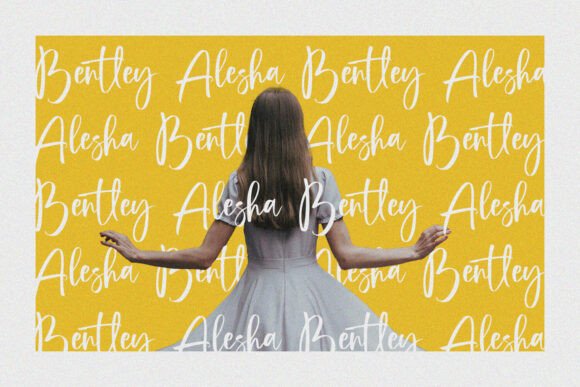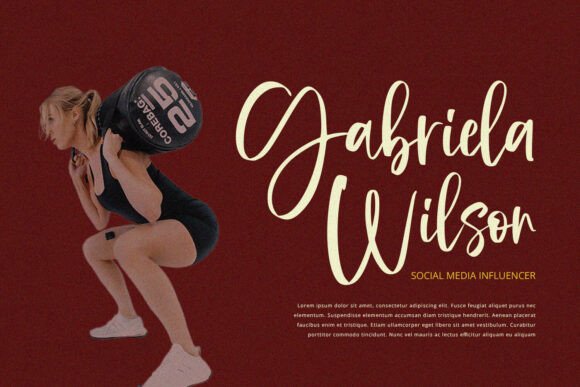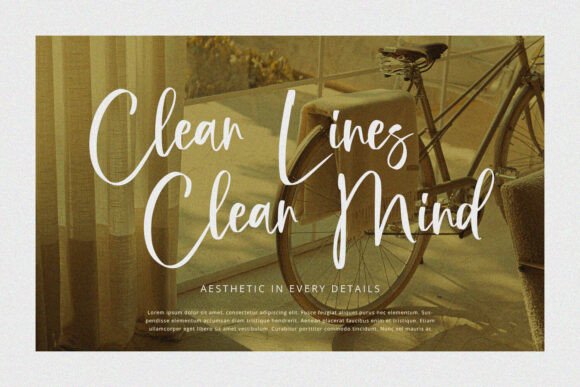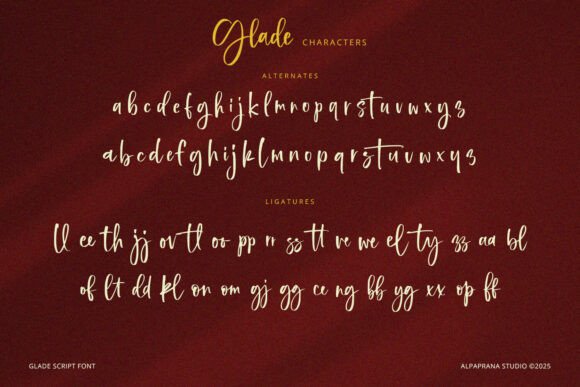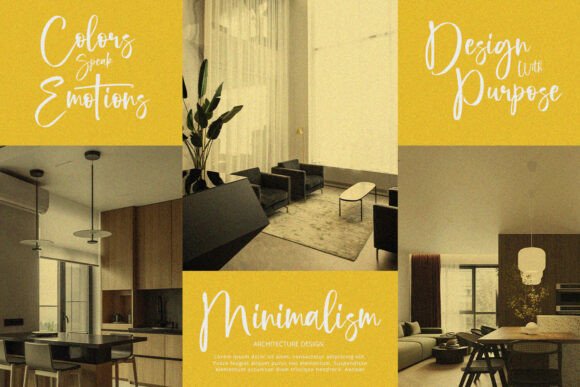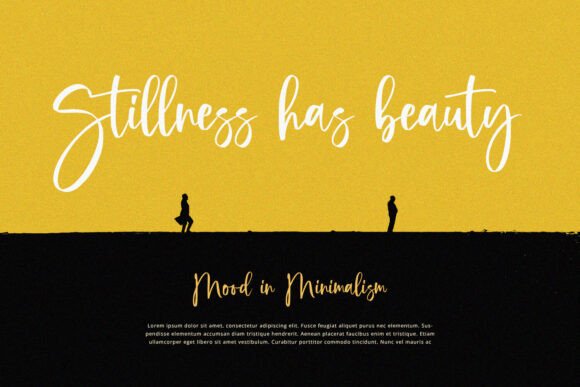
Introducing Glade Font: Elevate Your Designs with Chic and Modern Handwritten Script
In the world of typography, fonts play a crucial role in conveying the tone and aesthetic of a design project. For designers and crafters seeking a stylish and contemporary look, Glade Font is an excellent choice. This handwritten script font boasts a chic and modern feel, making it perfect for a wide range of applications, from magazines and packaging to posters, shopping bags, t-shirts, book covers, photography, and special events.
What Makes Glade Font Stand Out?
Glade Font’s unique charm lies in its elegant, cursive script. The font’s flowing lines and subtle variations in thickness create a sense of movement and fluidity, adding a touch of sophistication to any design. Its modern feel ensures that your projects look fresh and up-to-date, while its handwritten nature adds a personal and approachable touch.
Glade Font’s versatility makes it an excellent choice for numerous design applications. Here are some of the ways you can use this beautiful font:
• Magazines and Editorials: Add a touch of elegance to your magazine layouts, articles, and headlines with Glade Font.
• Packaging: Elevate your brand’s packaging design with a stylish and modern font that reflects your company’s personality.
• Posters and Flyers: Create eye-catching posters and flyers for events, promotions, or advertisements with Glade Font’s bold and cursive script.
• Shopping Bags: Add a personal touch to your brand’s shopping bags with a beautiful, handwritten font.
• T-Shirts and Apparel: Design stylish and trendy t-shirts, hoodies, and other apparel with Glade Font’s modern and chic feel.
• Book Covers: Create captivating book covers that stand out on bookshelves with Glade Font’s elegant and cursive script.
• Photography: Add a touch of sophistication to your photography projects, such as portfolios, prints, or social media graphics.
• Special Events: Use Glade Font to create beautiful and memorable designs for weddings, parties, and other special events.
Why Choose Glade Font?
Glade Font offers several benefits that make it an excellent choice for designers and crafters:
• Unique and Stylish: Glade Font’s elegant and cursive script sets it apart from more traditional fonts.
• Versatile: Use Glade Font for a wide range of design projects, from digital to print.
• Easy to Read: Despite its cursive nature, Glade Font is clear and easy to read, making it perfect for body text and headlines.
• Customizable: Experiment with different colors, sizes, and styles to make Glade Font your own.
Tips for Using Glade Font Effectively
To get the most out of Glade Font, follow these tips:
• Pair with Contrasting Fonts: Combine Glade Font with sans-serif or serif fonts to create visual interest and hierarchy.
• Experiment with Colors: Try different colors and gradients to add depth and emotion to your designs.
• Play with Sizes: Use Glade Font in various sizes to create visual hierarchy and emphasis.
• Add Texture and Patterns: Incorporate textures and patterns to add an extra layer of depth to your designs.
In conclusion, Glade Font is a beautiful and versatile handwritten script font that can elevate your designs to the next level. Its chic and modern feel makes it perfect for a wide range of applications, from magazines and packaging to posters, shopping bags, t-shirts, book covers, photography, and special events. With its unique charm, ease of use, and customization options, Glade Font is an excellent choice for designers and crafters seeking a stylish and contemporary look.